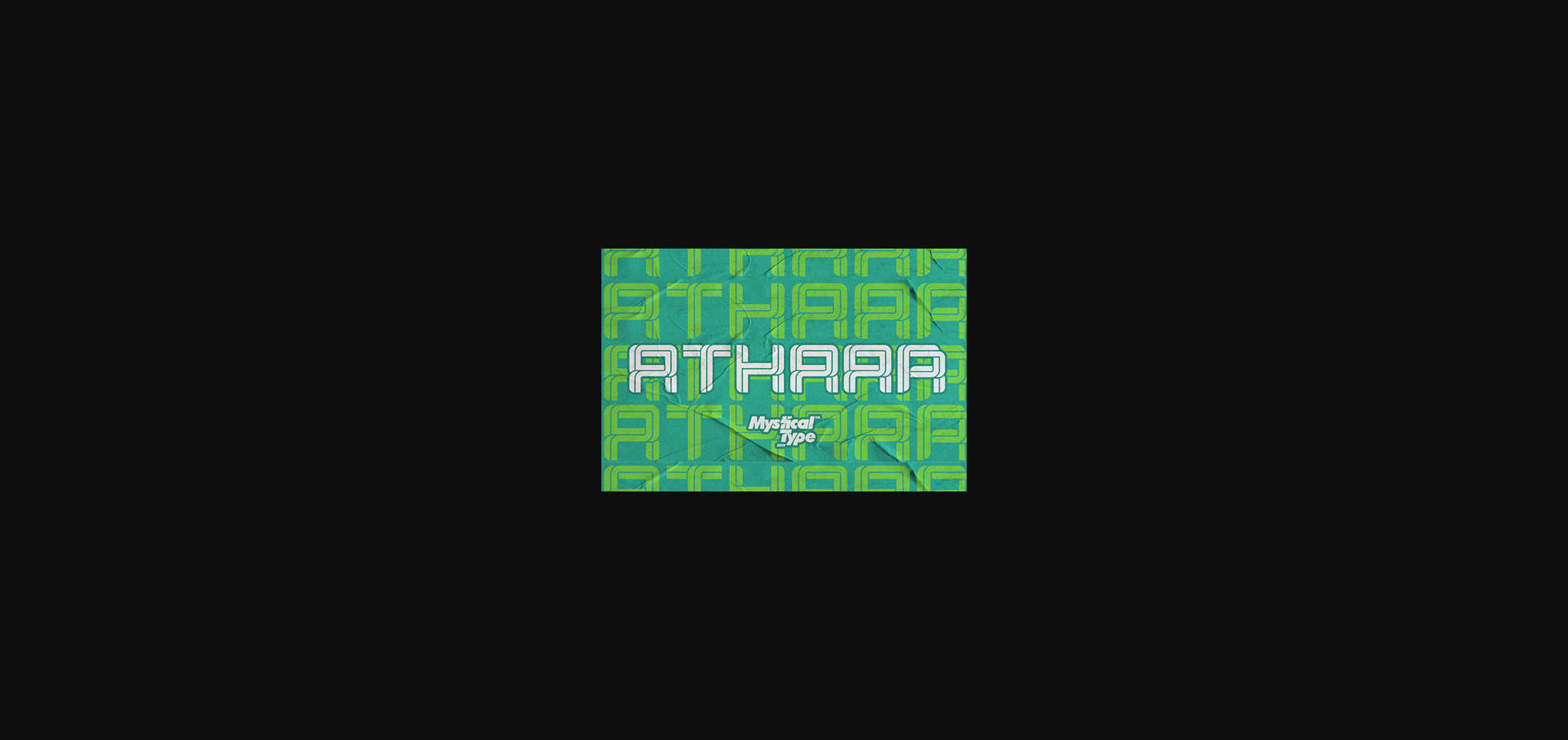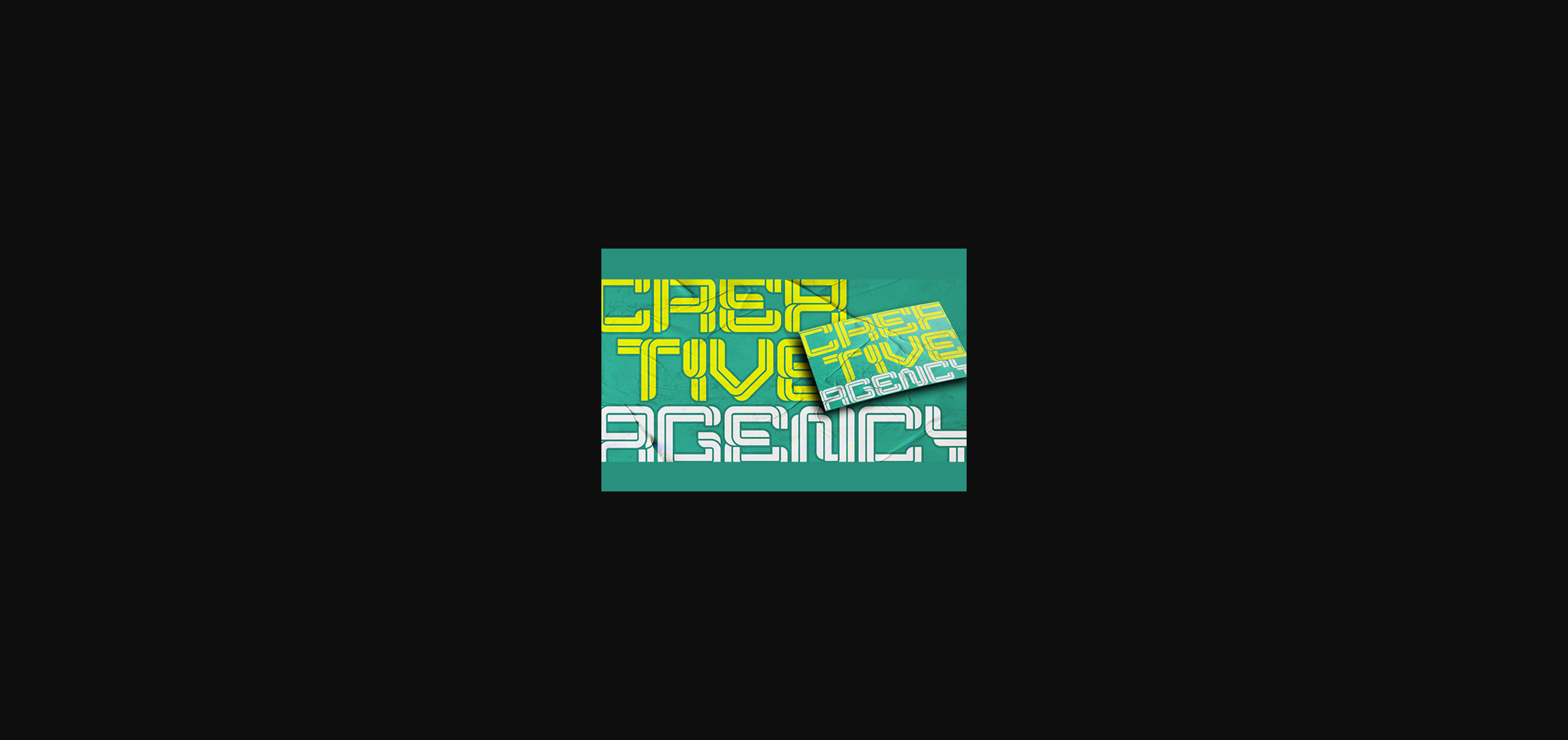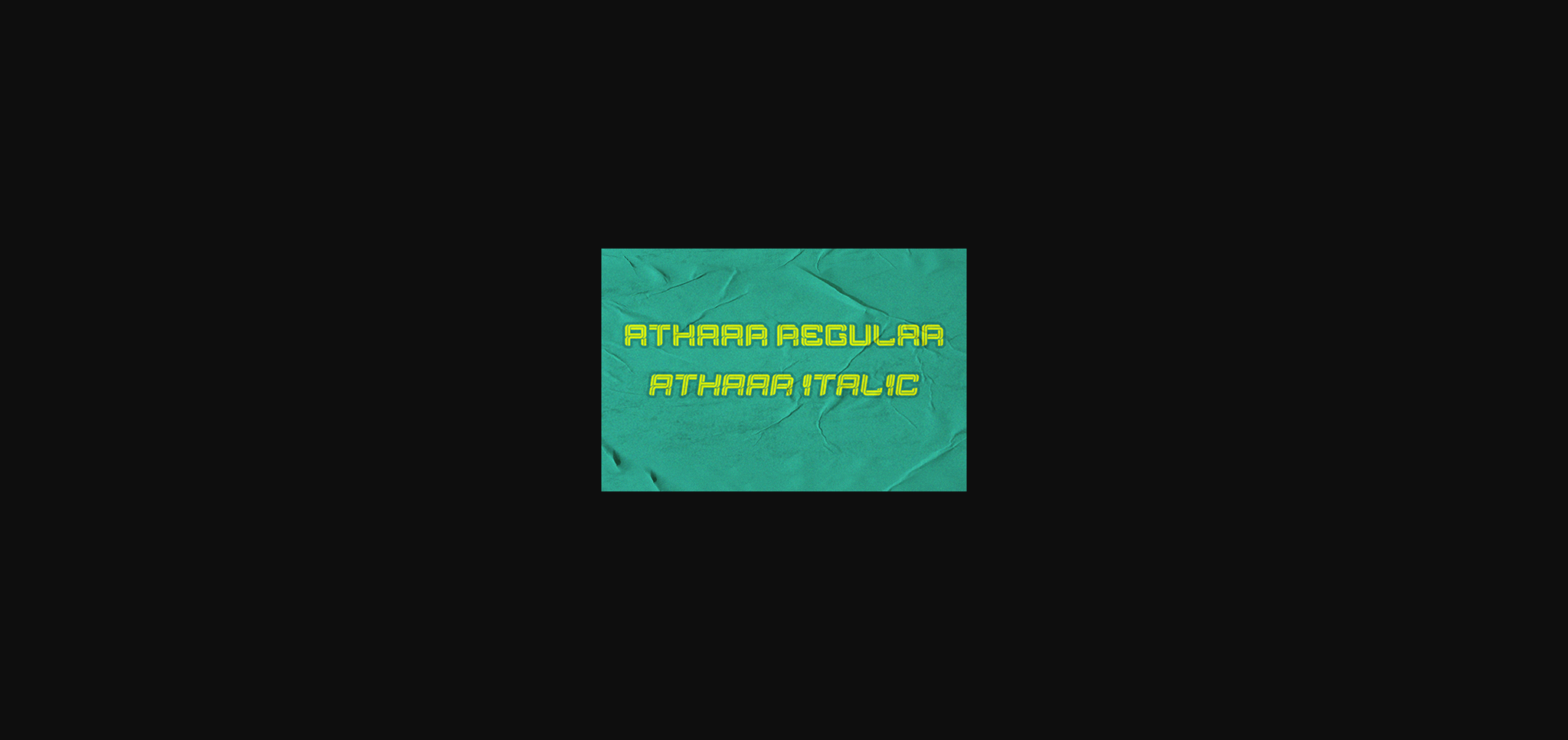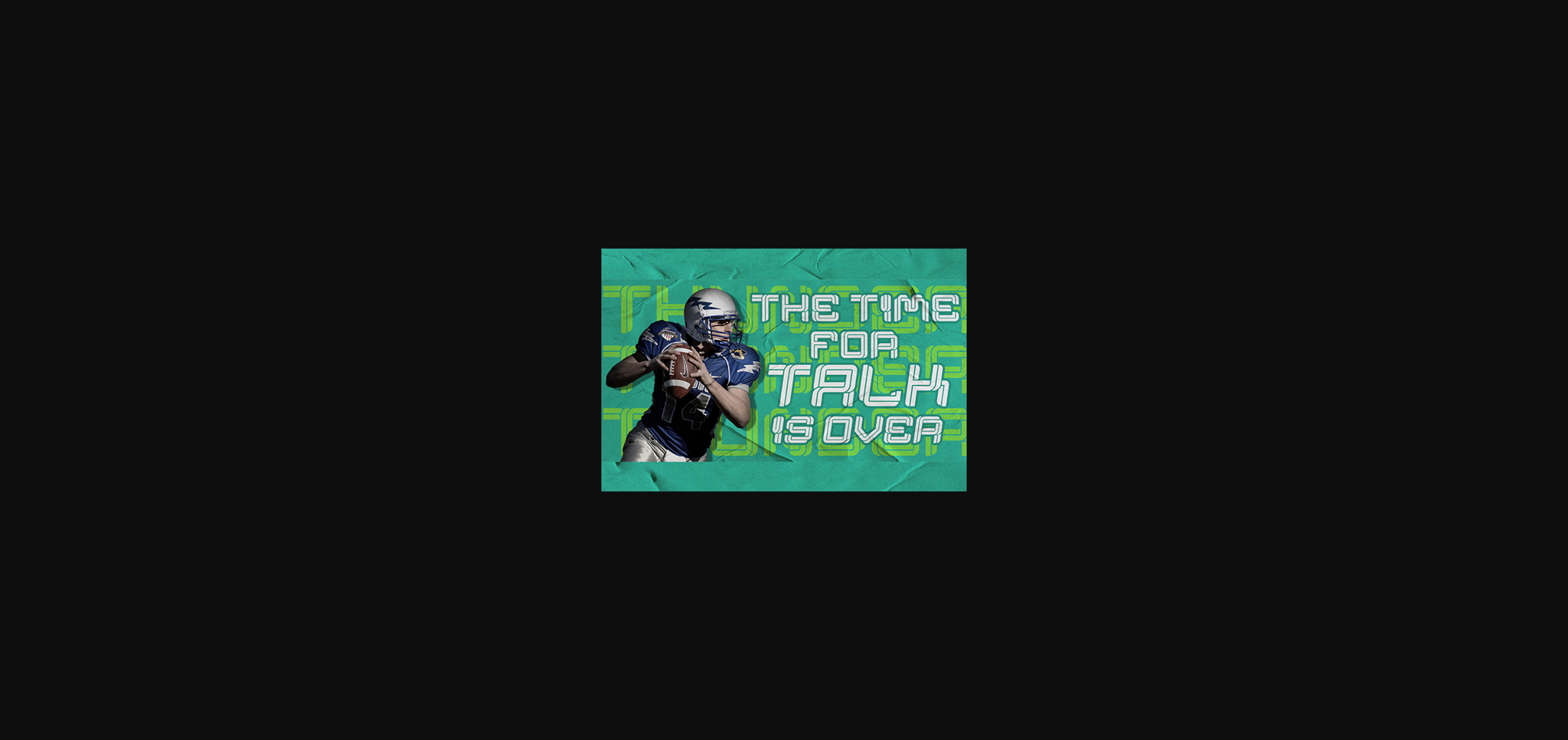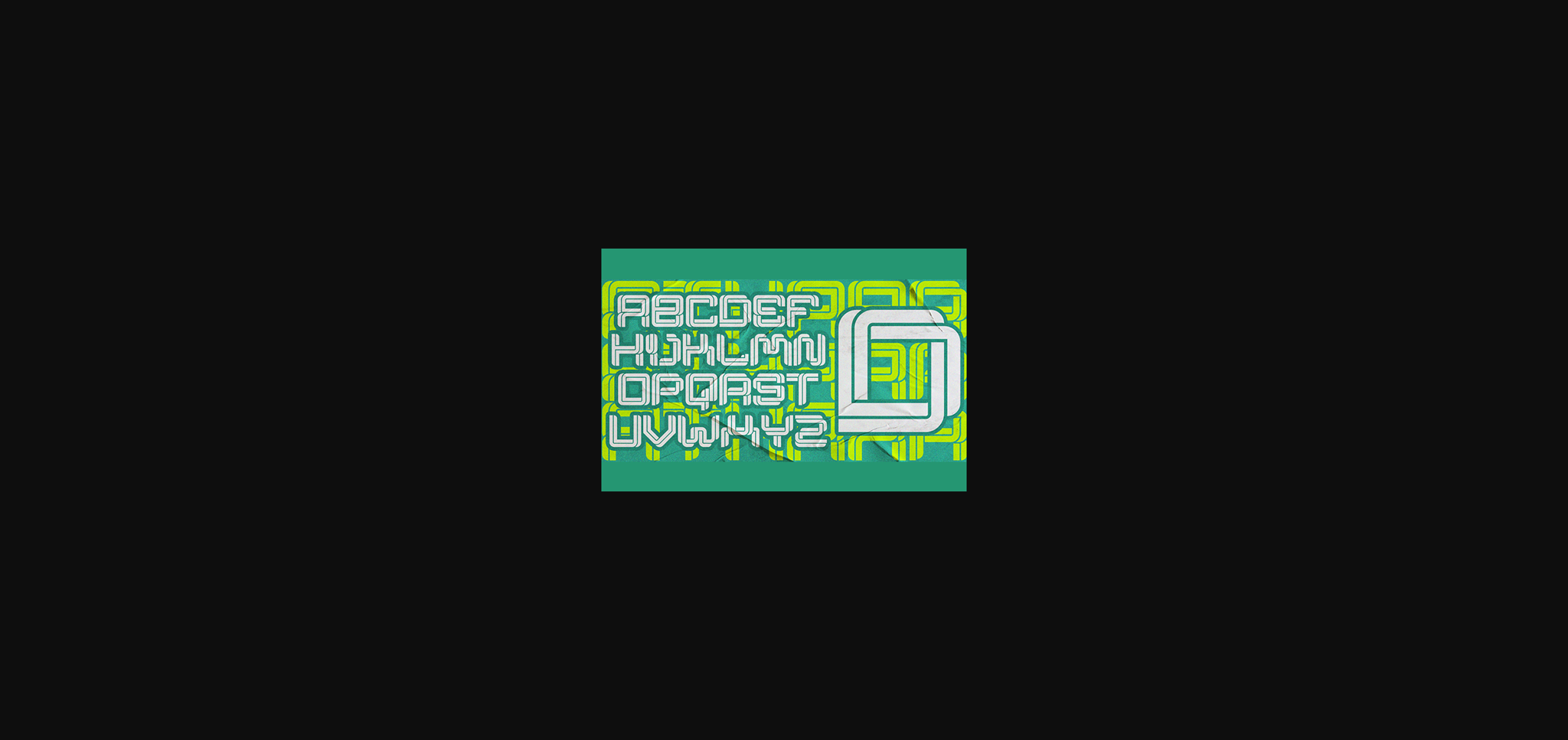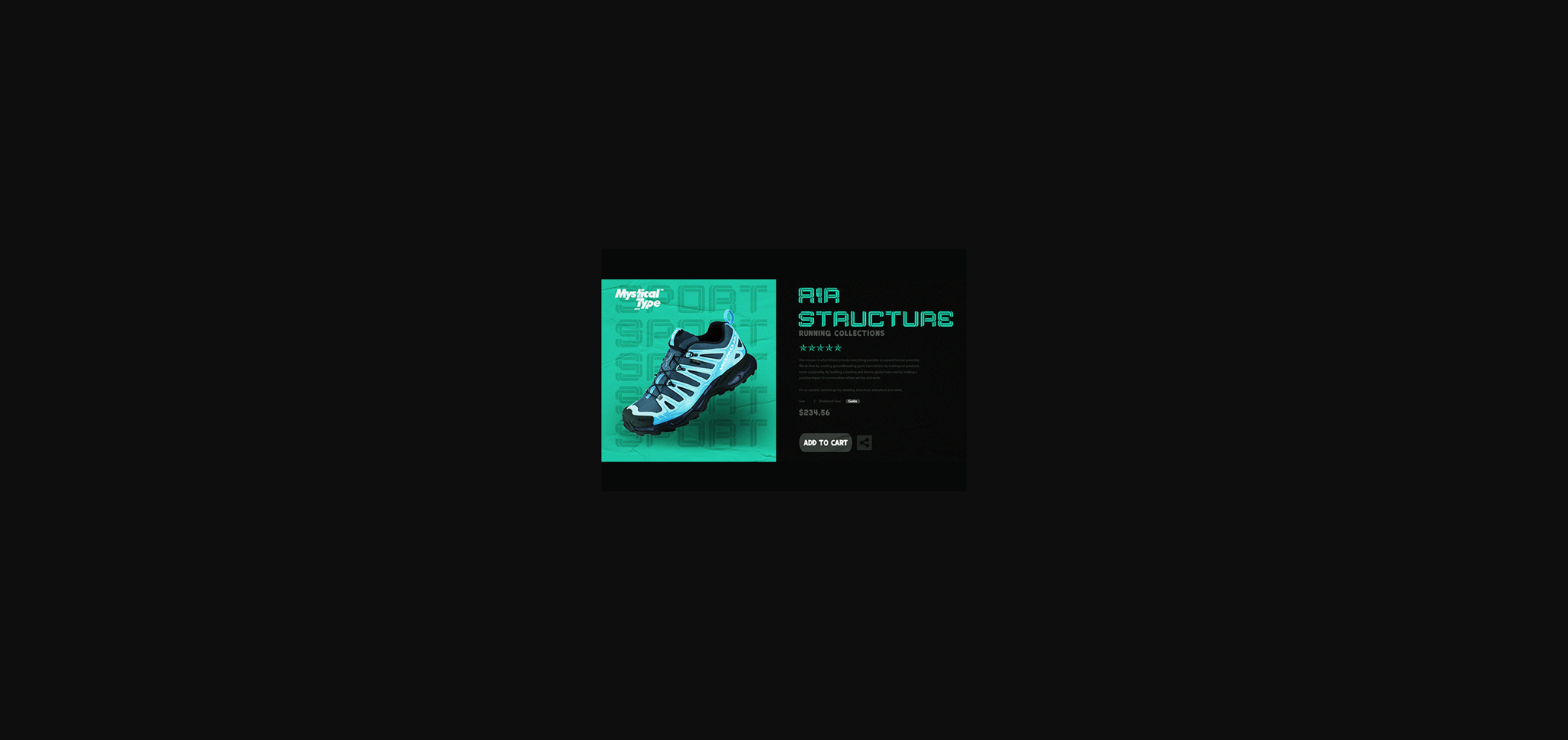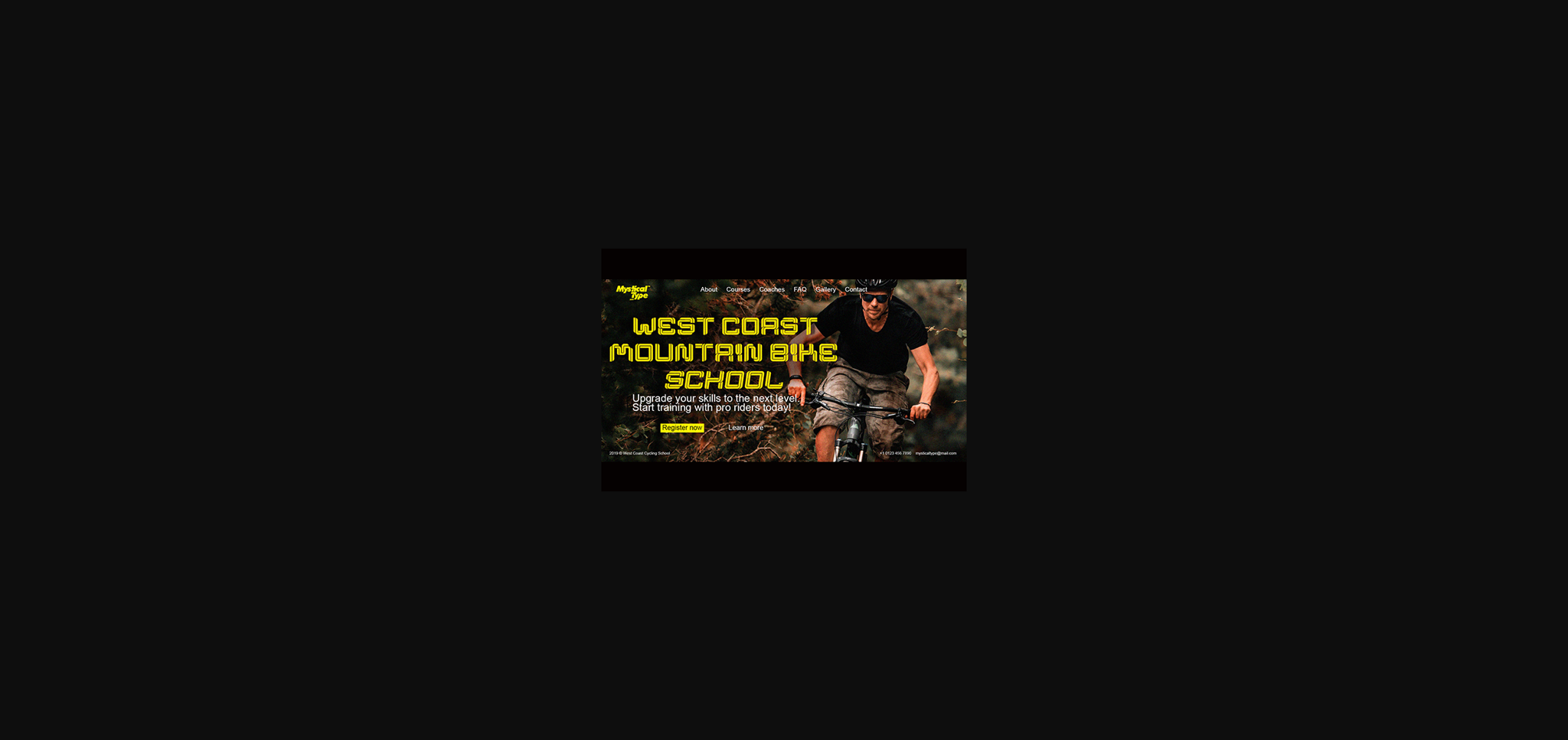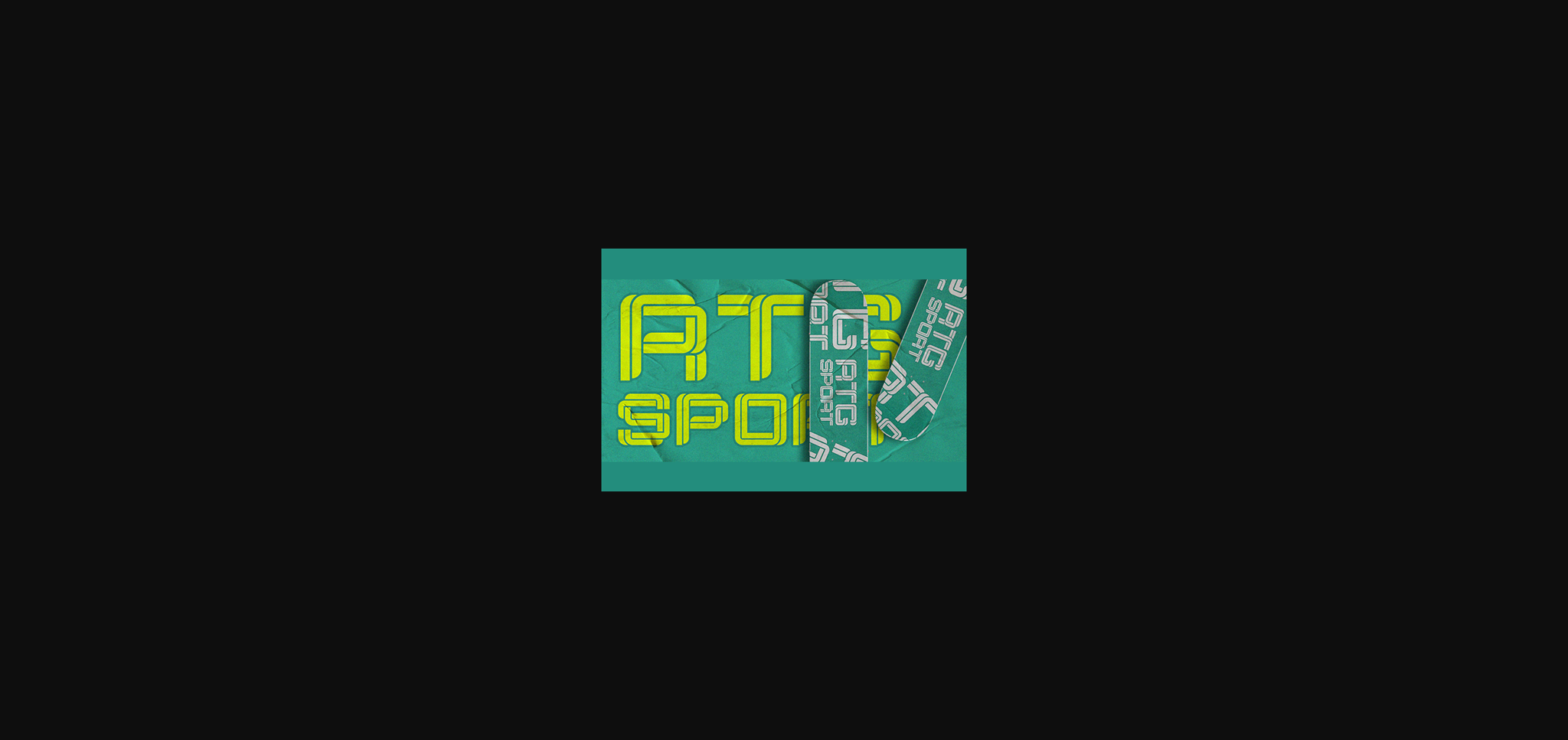
Athaar is a bold and sporty sans serif font, carefully handcrafted to become a true favorite. This font will look outstanding in any context, whether it’s being used on busy backgrounds or as a standalone headline!